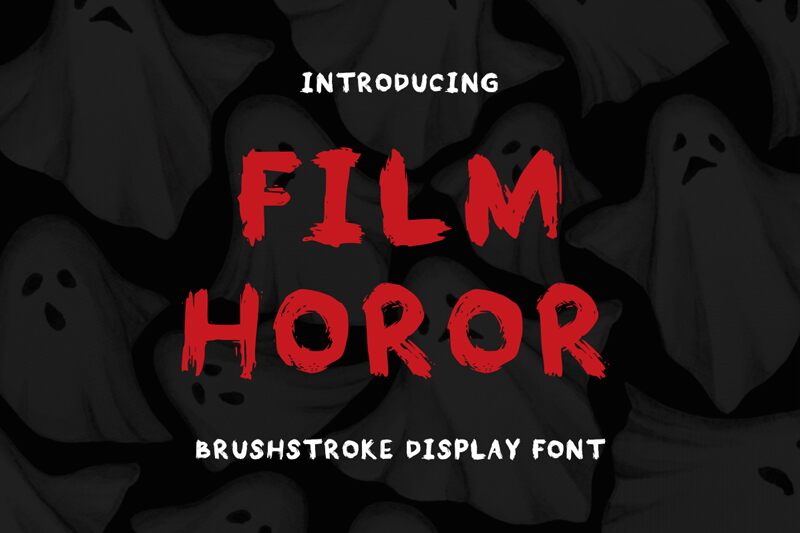
Film Horor captivates with its striking design, embodying a bold and eerie aesthetic that commands attention. This display font features rugged, uneven strokes that evoke a sense of chaos and suspense, perfect for creative projects steeped in horror themes. Its intimidating presence is amplified by a robust form, making each letter appear almost as if it's been painted in a frantic manner-ideal for captivating titles or eye-catching headlines.
Film Horor's unique character lends itself beautifully to movie posters, Halloween invitations, or any artwork craving a haunting atmosphere. Its dramatic flair ensures it stands out in various contexts where an unsettling edge is desired. Embrace the chilling essence of Film Horor to infuse your designs with an unforgettable impact that lingers in the imagination.
Film Horor